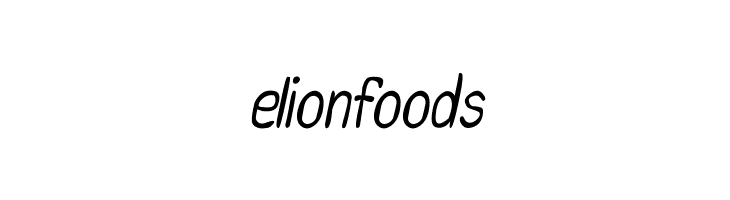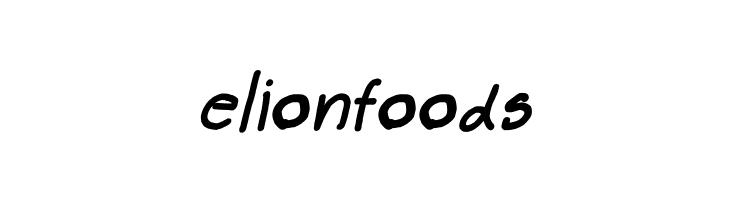
A modern, geometric font with sharp angles and smooth curves.
A robust slab serif font with balanced proportions and strong serifs.
A modern slab serif font with italic styling and consistent stroke width.
A bold, hand-drawn font with a playful and artistic style.
A dynamic and expressive script font with fluid, handwritten letterforms.
A dynamic cursive font with elegant, flowing letterforms and a modern classic appeal.
A bold, high-contrast font with sharp serifs and dynamic character shapes.
A bold, angular serif font with a dramatic and modern twist.
A bold, distressed font with a rugged, vintage aesthetic.
A bold, sans-serif font with a shaded, three-dimensional effect.
A bold, distressed font with a rugged, vintage look.
A bold, sans-serif font with a 3D shaded effect for a modern, impactful look.
A decorative font with intricate floral patterns within each character.
A bold, playful handwritten font with thick, uneven strokes.
A playful, bold, and hand-drawn font with a cartoonish style.
Bold, geometric font with strong, uniform strokes and a modern, industrial feel.
Bold, geometric font with blocky, angular characters for a modern, assertive look.
A futuristic, geometric font with a modular and consistent design.
A modern, clean sans-serif font with excellent legibility and uniform stroke width.
A modern, rounded sans-serif typeface with uniform stroke width and excellent readability.
A chaotic, jagged decorative font with a unique, edgy style.
A bold, playful handwritten font with expressive strokes.